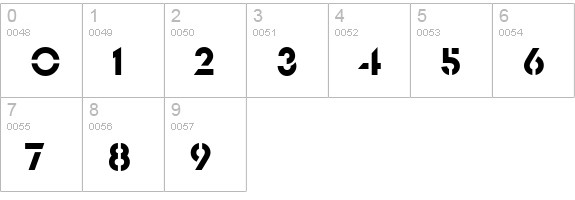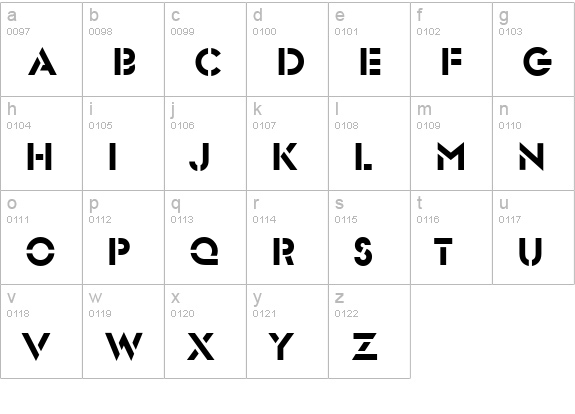
Glendale-Stencil-Regular is the standard, neutral variant in the Glendale typeface family \xE2\x80\x94 well suited to general body text, paragraphs, and standard typographic work.
Glendale Stencil Regular is a versatile and stylish font that combines classic elegance with a modern twist. Its clean lines and bold strokes make it perfect for a wide range of design projects, from posters to packaging to branding. The stencil effect adds a unique touch, giving your text a contemporary edge. What makes Glendale Stencil Regular even more appealing is that it is available for free download at FontsMarket.com. This means that you can easily access this high-quality font without any cost, making it a valuable addition to your font library. Whether you are a professional designer or a creative enthusiast, Glendale Stencil Regular is sure to elevate your projects with its sleek and eye-catching aesthetic.